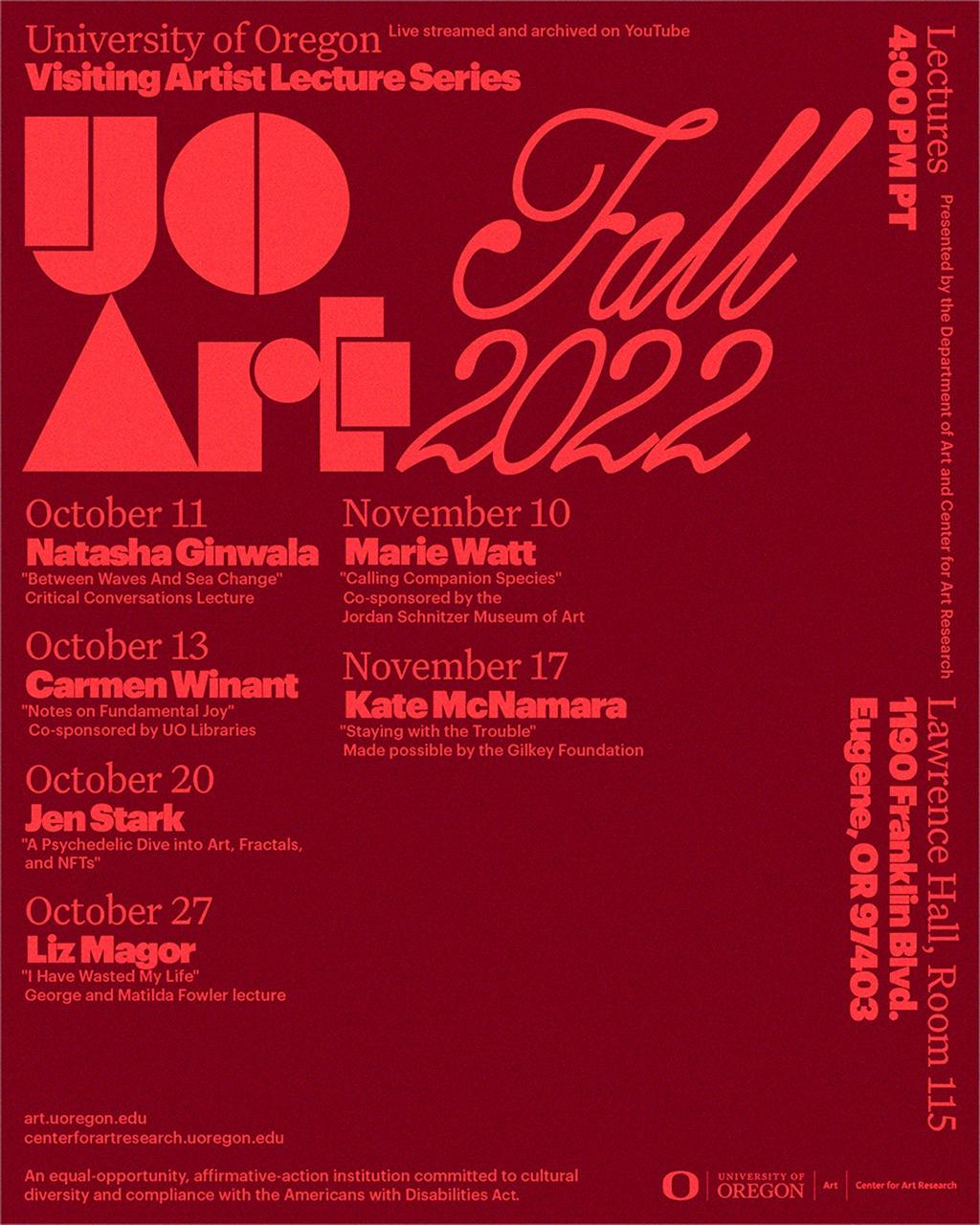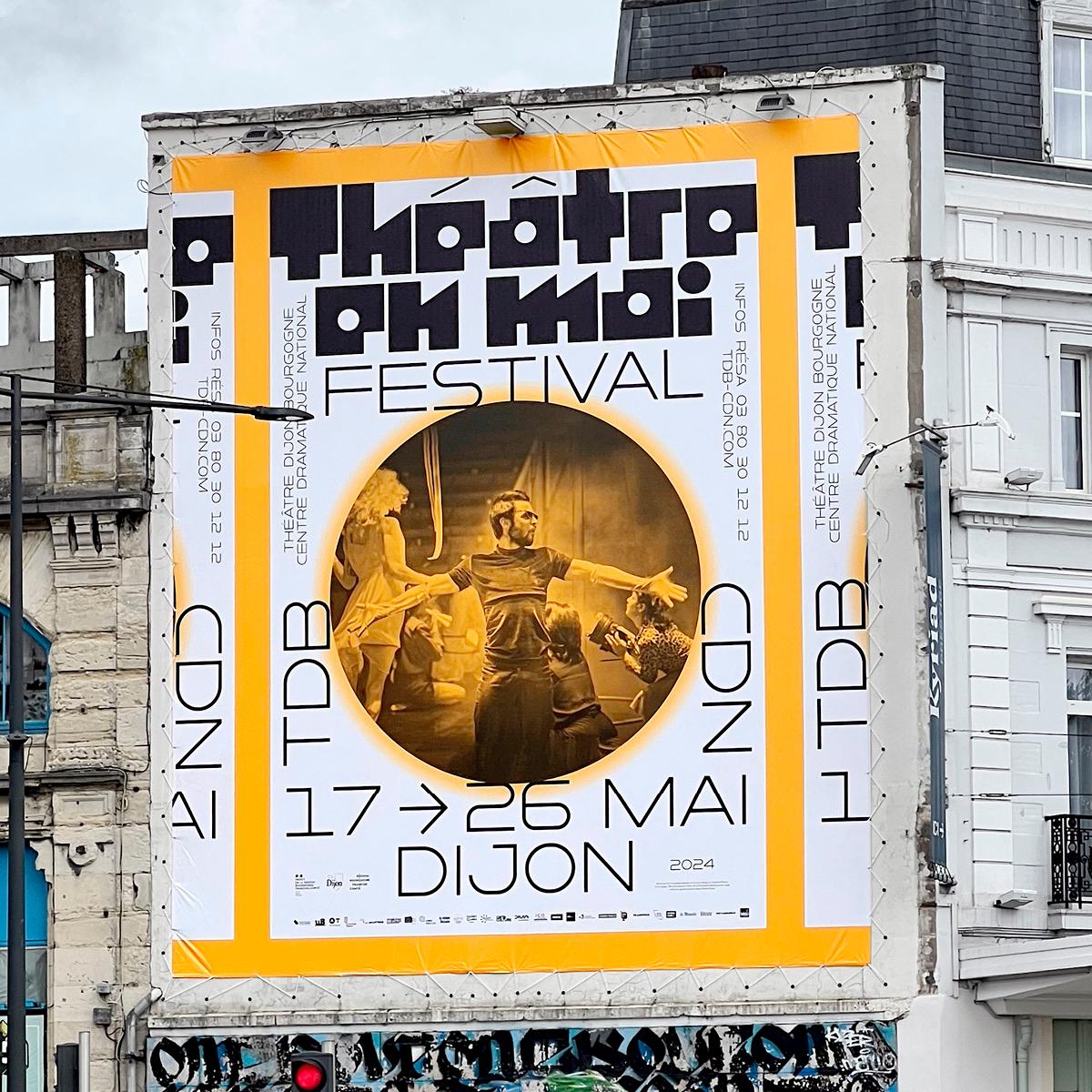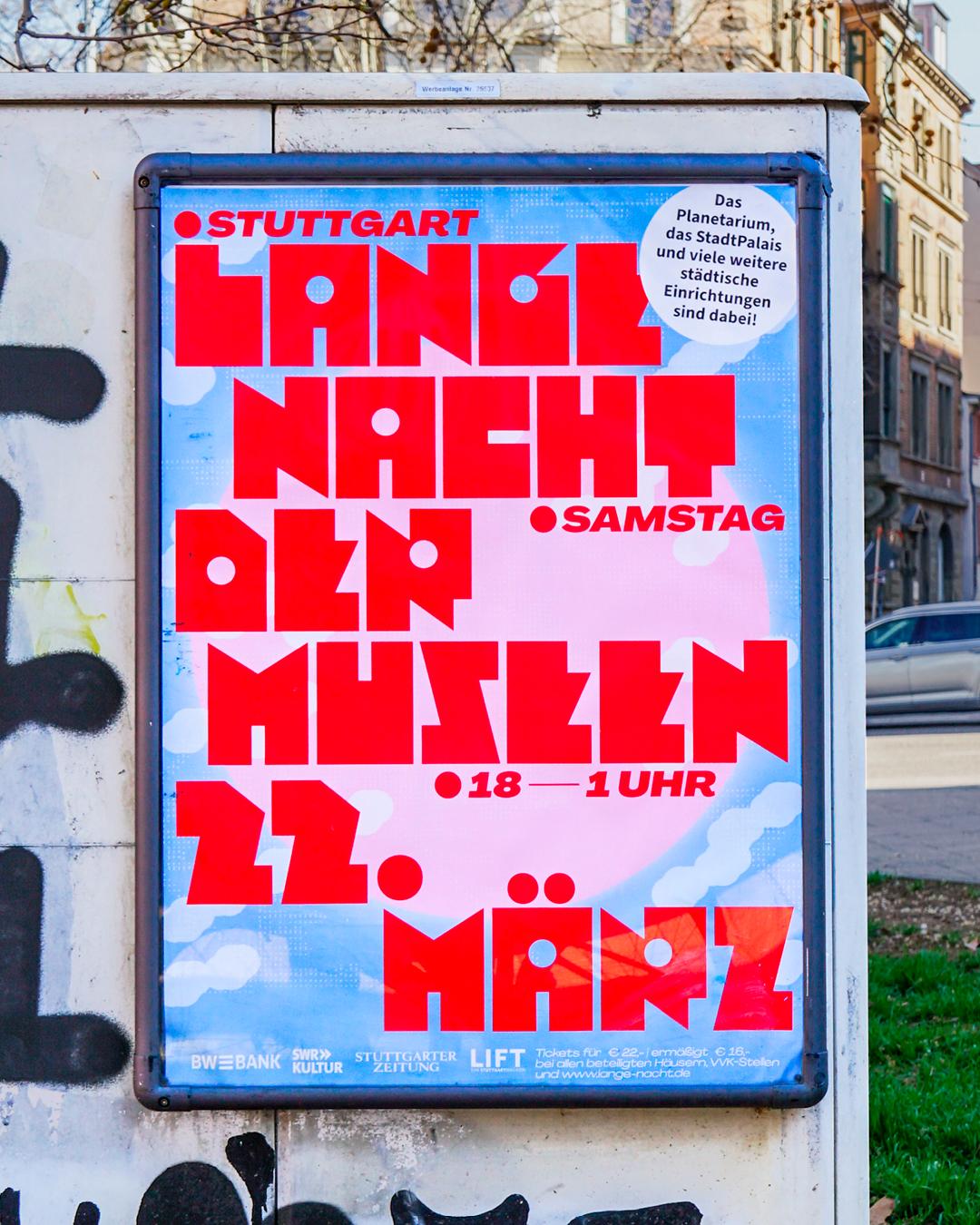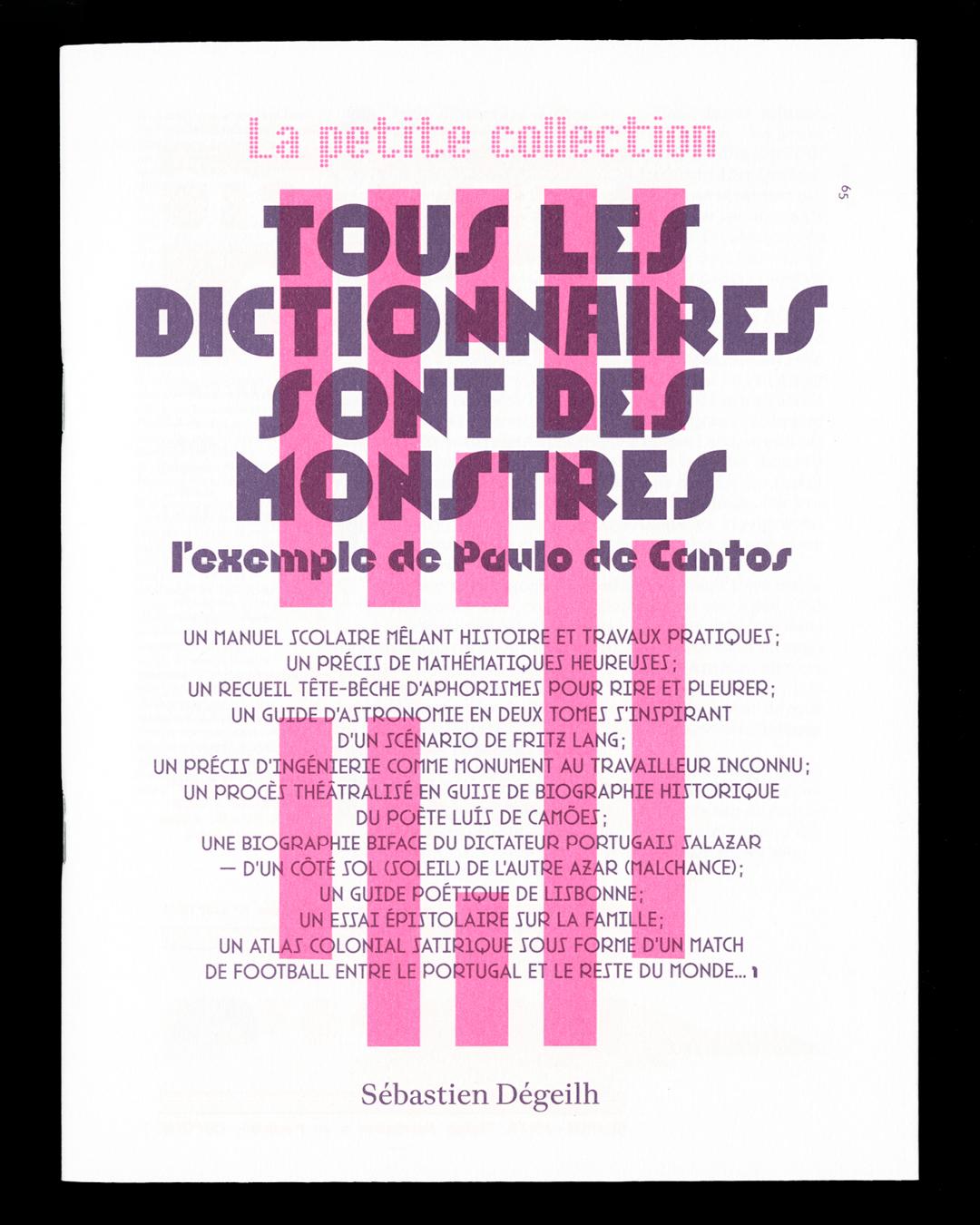
Tifo takes its inspiration from the lettering that can be found on the banners brandished by the most fervent tifosi (supporters) during football matches.
Emerging in Italian stadiums in the early days of the Years of Lead, these supporters showed their support for their favorite team using banners, chants, and smoke bombs.
Initiated by Roman Tronchin in 2021 as part of the ECAL’s Master’s degree in Type Design, the Tifo typeface comes in five styles: Roma, Venezia, Bologna, Palermo, and Milano.
Romain Tronchin developed this typeface by carefully examining tifosi fanzines from the 1970s and 1980s, with each variant corresponding to a different style of lettering.
Some “oddities” visible in these vernacular sources–which could rightly be considered as typographic errors–were intentionally conserved. They provide Tifo with a singular and authentic character that is part of a long-standing tradition of typically Italian public lettering.
The five styles of Tifo share the same underlying frame, but each one “wears its own colors”!
With a geometrical construction, and a design reduced to elementary forms, the Roma (with square counterforms), Venezia (with its rectangular outlines and circular counterforms), Bologna (outline), and Palermo (stencil) styles are four versions clearly intended for titling, designed to be used in large sizes.
The Milano style, whose design is closest to the type family’s frame, is a polyvalent version that can be adapted for use as both titling and running text.
All of the styles share the same proportions, thus allowing graphic designers to easily combine the five versions in their compositions.